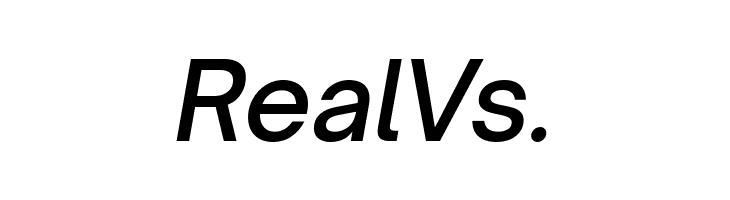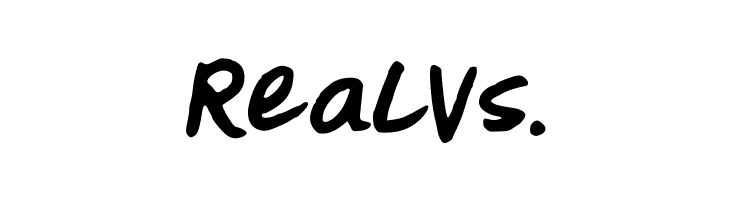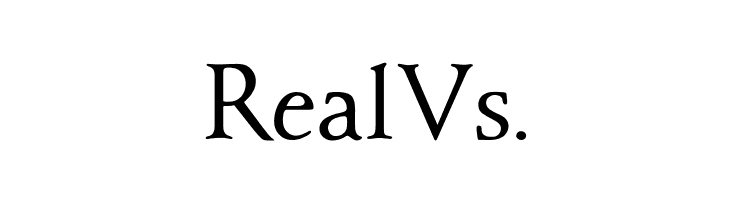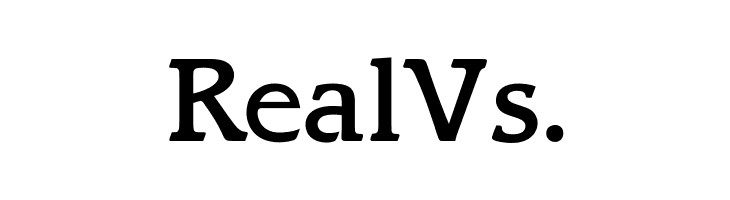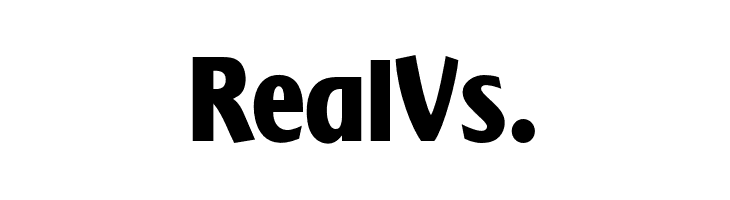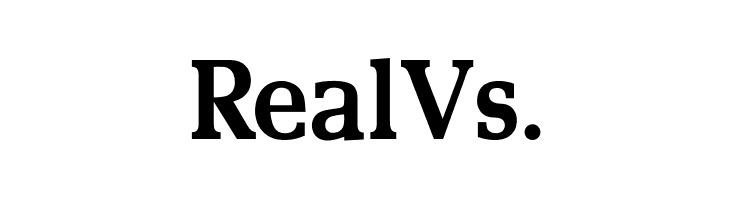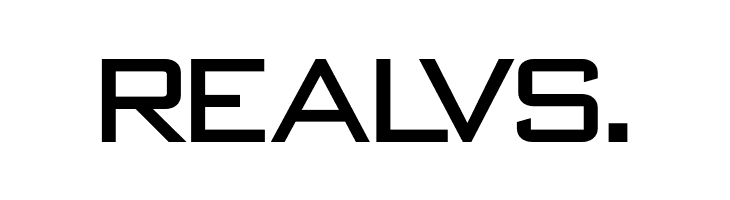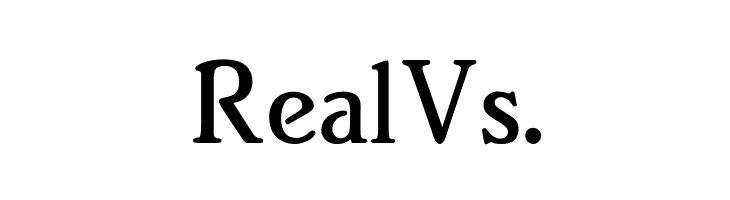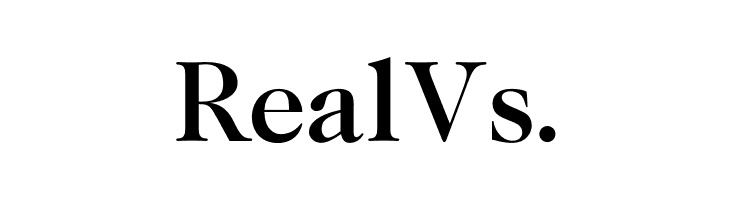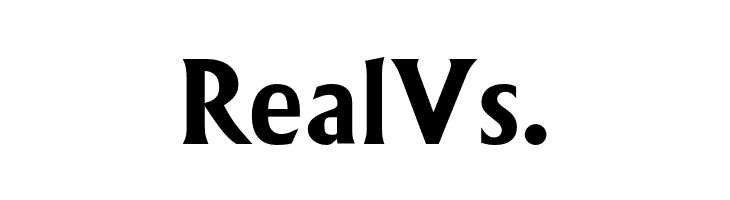
A casual, handwritten-style font with fluid, slightly irregular characters.
A playful, casual handwritten font with smooth, consistent strokes.
A playful, bold font with irregular shapes and dynamic strokes.
A bold, curvy, and playful font with a handwritten style.
A modern, geometric sans-serif font with uniform stroke widths.
A modern, medium-weight, italic sans-serif font with a clean and dynamic style.
A minimalist, geometric font with thin lines and a modern aesthetic.
A pixelated, blocky font with a retro digital aesthetic.
A playful, hand-drawn font with bold, rounded strokes and a casual style.
A bold, modern typeface with strong, impactful characters.
A bold, assertive serif font with thick strokes and slightly condensed letterforms.
A modern, clean font with balanced proportions and strong readability.
A modern, geometric font with bold, angular characters and a sleek appearance.
A classic serif font with medium weight and moderate contrast, offering elegance and readability.
A classic serif font with medium weight and pronounced serifs, offering a traditional and formal look.
A medium-weight, italic serif font with a classic and elegant style.
A bold, classic serif typeface with strong strokes and pronounced serifs.
A classic serif font with elegant strokes and balanced proportions.
A classic serif font with high contrast and elegant strokes.
A classic serif typeface with elegant strokes and medium weight.
A bold and confident serif font with strong strokes and balanced design.
A classic serif font with elegant strokes and a timeless appeal.
A bold, modern font with structured, geometric shapes and a slightly condensed style.
A bold, geometric typeface with clean lines and a modern aesthetic.
A bold, modern, and condensed font perfect for impactful headlines.
A playful, rounded font with a hand-drawn, whimsical style.
A bold, high-contrast serif font with a classic and authoritative style.